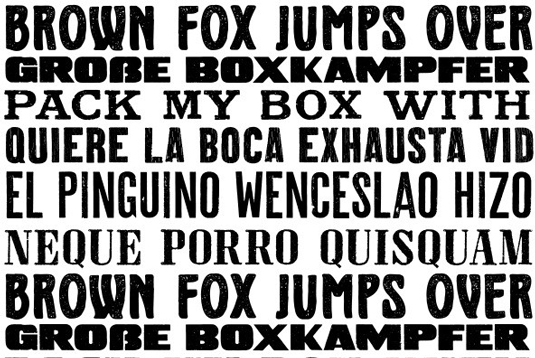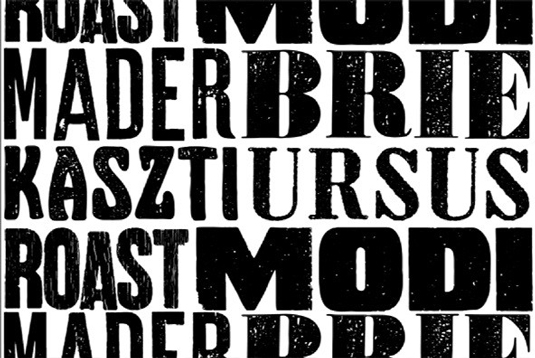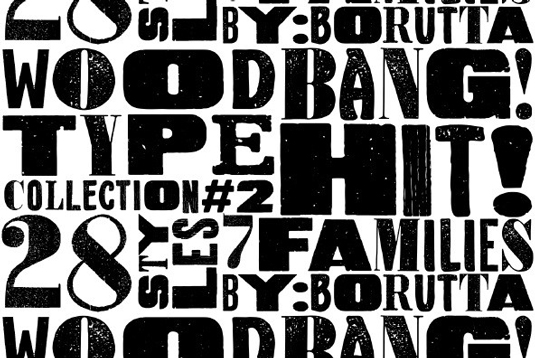
Font of the day: Letterpress Collection
Letterpress Collection by Mateusz Machalski
LetterPress Collection is a set of weathered, hand made typefaces. Designed by Mateusz Machalski, the family consists of seven typefaces in 28 different styles, including regular, italic, print and stencil.